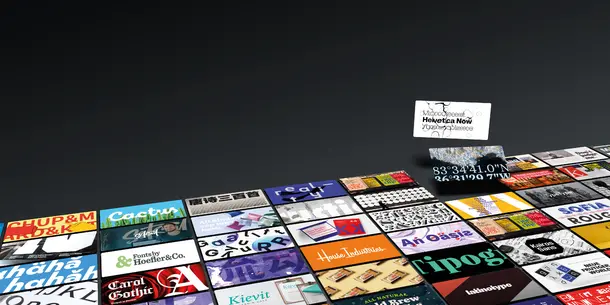
Monotype Celebrates Early Success and New Brand Wins with Hoefler&Co.
Adding more than 1,100 original typeface designs and expertise from revered industry leaders, Monotype is solving design challenges for global brands
WOBURN, Mass., May 5, 2022 /PRNewswire/ — Monotype provided an update today, six months after announcing the acquisition of Hoefler&Co, a prominent type foundry based in New York City. Hoefler&Co is responsible for some of the world’s most popular typefaces, including Gotham, Knockout, Mercury, Sentinel, Chronicle, Decimal, and Archer. The full Hoefler&Co library remains available to the creative community through typography.com. Now, it is also accessible to global brands through Monotype Fonts, which combines the world’s largest collection of award-winning type, expertise from the most sought-after foundries and type designers, and trusted and secure font management.
“Receiving the keys to a typeface library like Hoefler&Co is a humbling experience,” said Monotype CEO Ninan Chacko. “The body of work is simply stunning, full of iconic, exquisite designs admired the world over, and we take our role as stewards of that library very seriously. It has been a privilege to welcome the Hoefler&Co team to Monotype and share their work with our customers.”
The acquisition has opened up new avenues for the Hoefler&Co library by making those typefaces available to Monotype Fonts customers from a range of industries, including entertainment, consumer projects, automotive, and philanthropic spaces. LSC Communications and Panera Bread are just a few of many industry-leading brands have already adopted Hoefler&Co fonts through Monotype Fonts, adding new layers of visual expression to their customer experiences under a single agreement.
Monotype has also made it a priority to support critical causes through the Hoefler&Co library. Last month, Monotype announced a partnership with Lippincott to help reimagine the brand identity for NYC Pride, the trademark event of Heritage of Pride, with a recognized legacy of unity, protest, advocacy, and fun. Monotype provided two typefaces, Knockout and Gotham, from the Hoefler&Co library.
Knockout and Gotham lend a bold and direct yet warm appearance to the new visual identity, aligning with the group’s new brand purpose: “To inspire and empower every LGBTQIA person to proudly love and live their truth.” Monotype is thrilled to see these two expressive typefaces working on behalf of this cause.
The world’s largest foundry becomes even more experienced.
As a part of the acquisition in September 2021, the Hoefler&Co team was integrated with Monotype, adding a robust tenure of experience and industry expertise to the Monotype Studio. Since that time, the team has made an impact across the organization and for key brand customers.
The integrated Studio team is now working on three exciting typeface releases later in 2022, which will be the first Hoefler&Co typefaces completed as a part of Monotype.
“When we acquired Hoefler&Co, we knew we were getting more than an amazing library of typefaces,” said Chacko. “The Hoefler&Co team brought invaluable talent and knowledge to Monotype, and we couldn’t be more grateful to have them here.”
“I have spent the past thirteen years at Hoefler&Co working with people who are supremely knowledgeable and passionate about typography and serious about its essential role in design. With the transition to Monotype, that number has only grown,” said Brian Hennings, Creative Director, Monotype. “There are so many people here who live and breathe type, want to talk about it, write about it, appreciate it, and spend their lives making it. I’m honored and proud to be amongst such talent.”
“Joining Monotype has been a major shift in scale after so many years as part of the small-but-mighty team at Hoefler&Co, and it’s a privilege to be working alongside the kind, welcoming, and talented group of people that make up the Monotype Studio,” added Sara Soskolne, Creative Type Director at Monotype. “It’s also meaningful for me to help our library reach and thrive within this broader audience.”